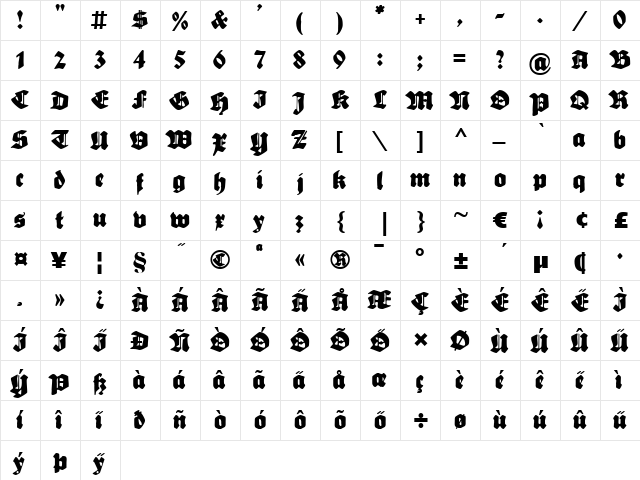
Sebaldus-Gotisch-UNZ1L Regular
| Designer | Dieter Steffmann |
Design Context for Sebaldus-Gotisch-UNZ1L Typeface
Sebaldus-Gotisch-UNZ1L takes a measured approach to typography — its balanced proportions and neutral character make it a reliable workhorse for both digital and print work.